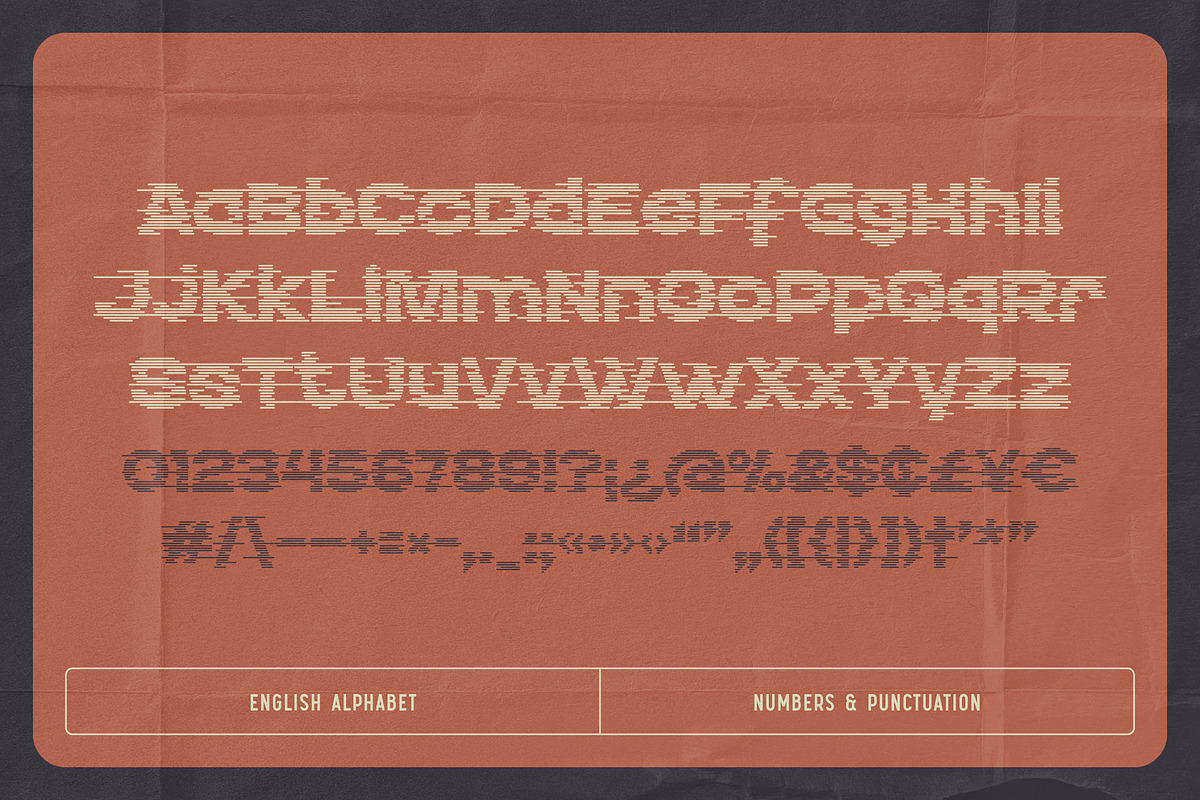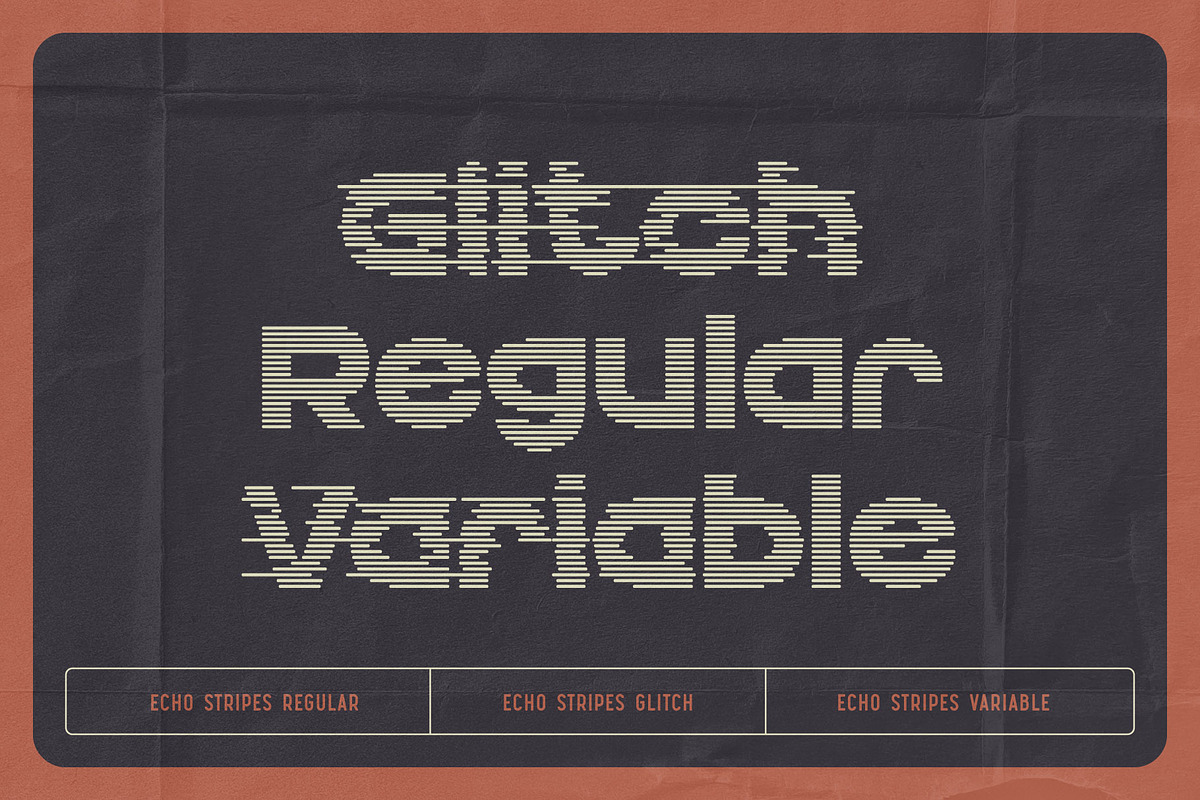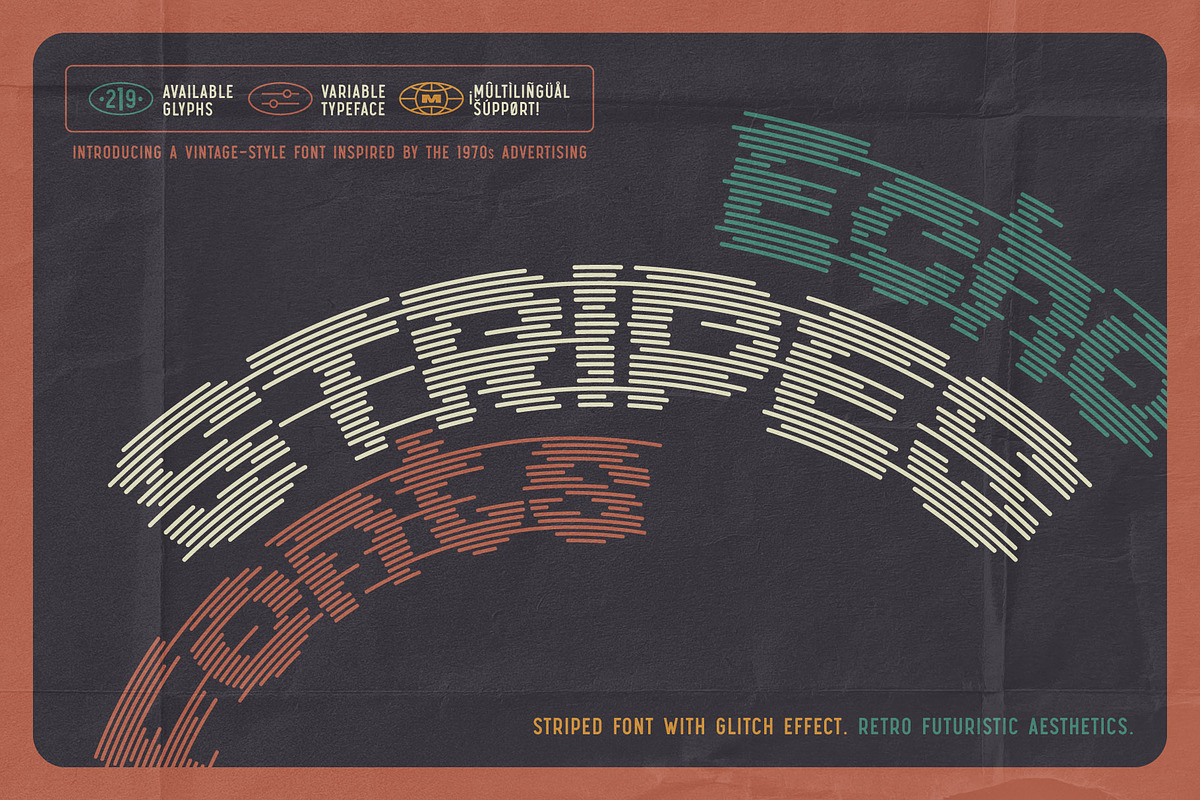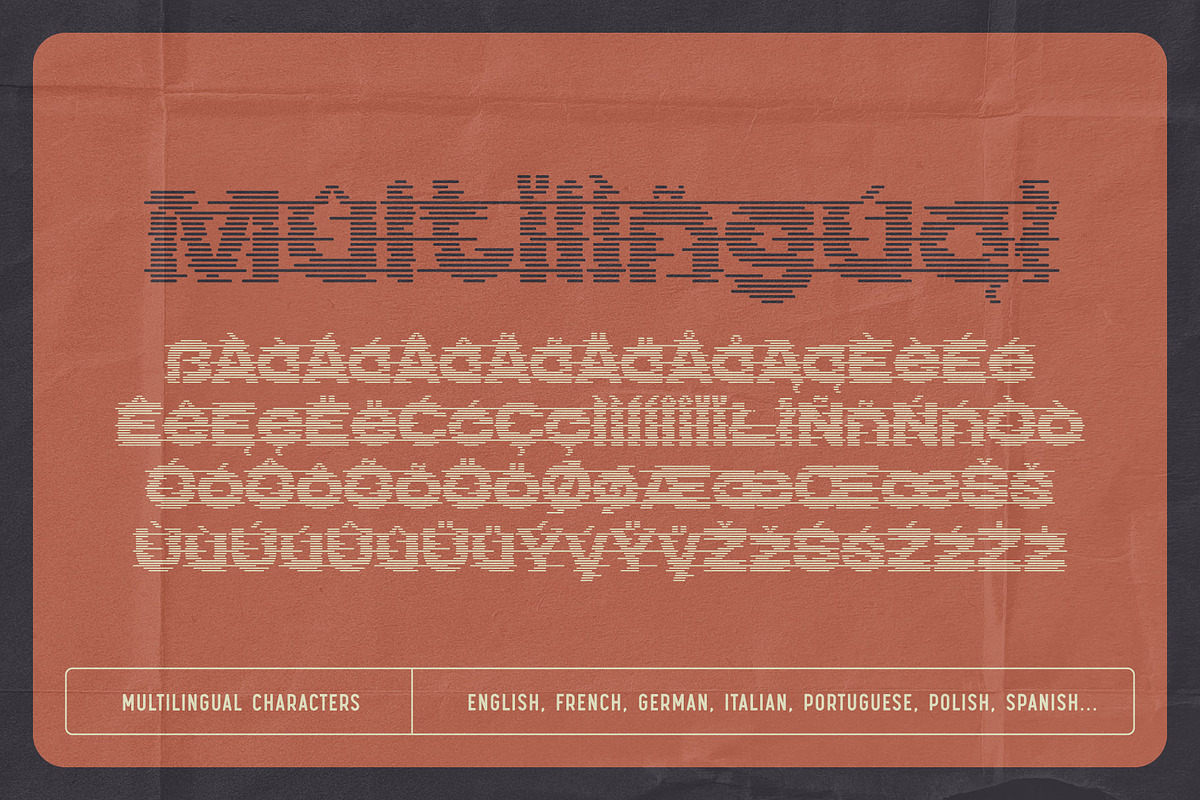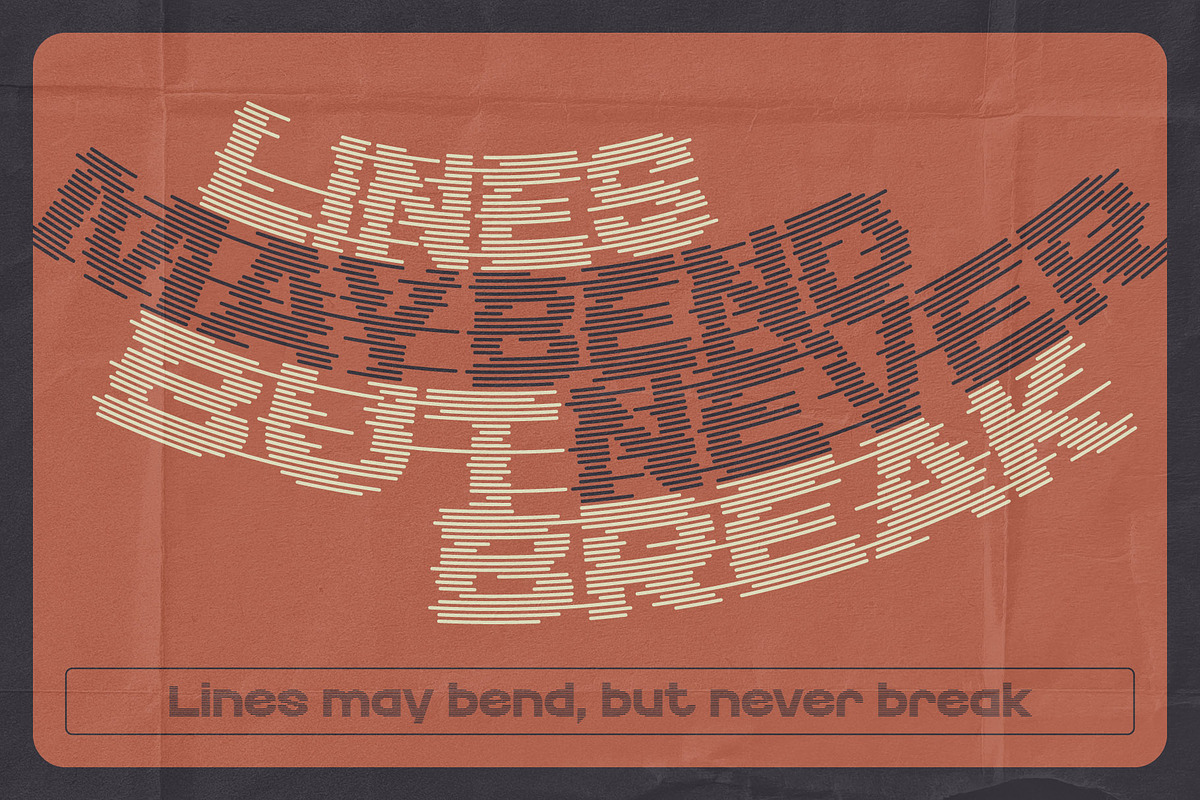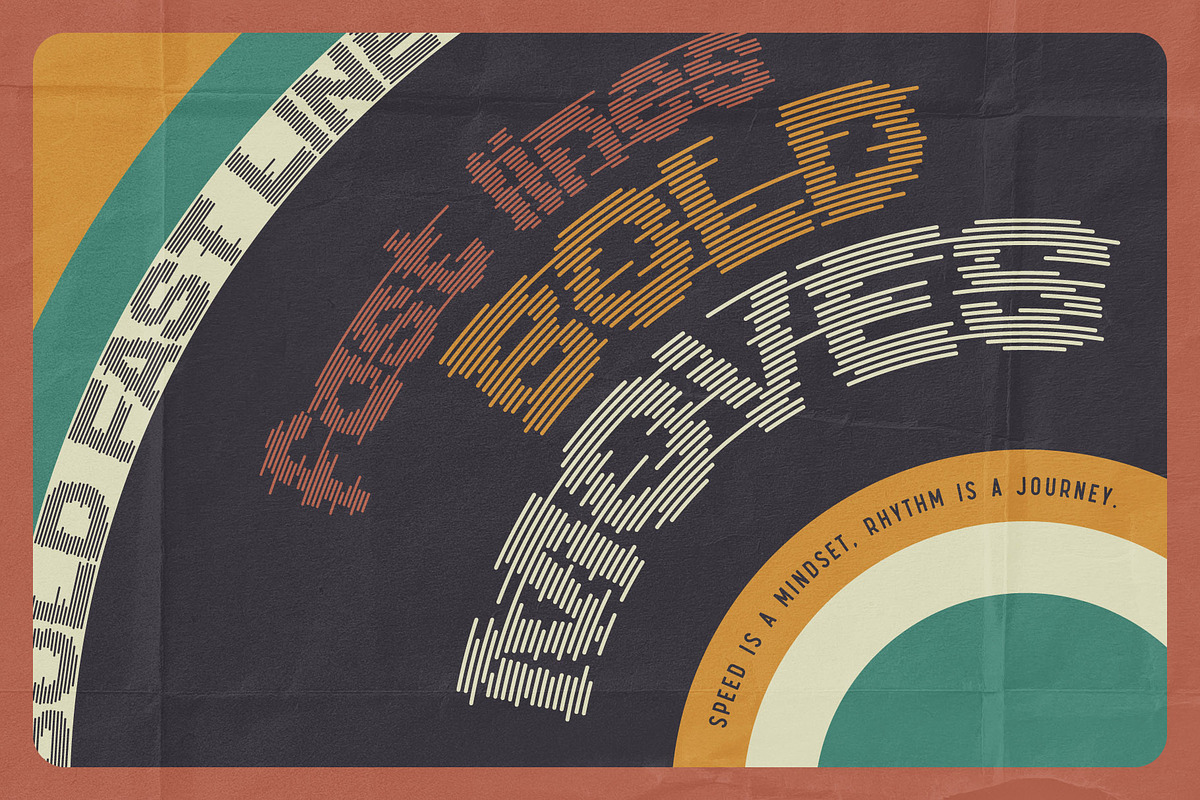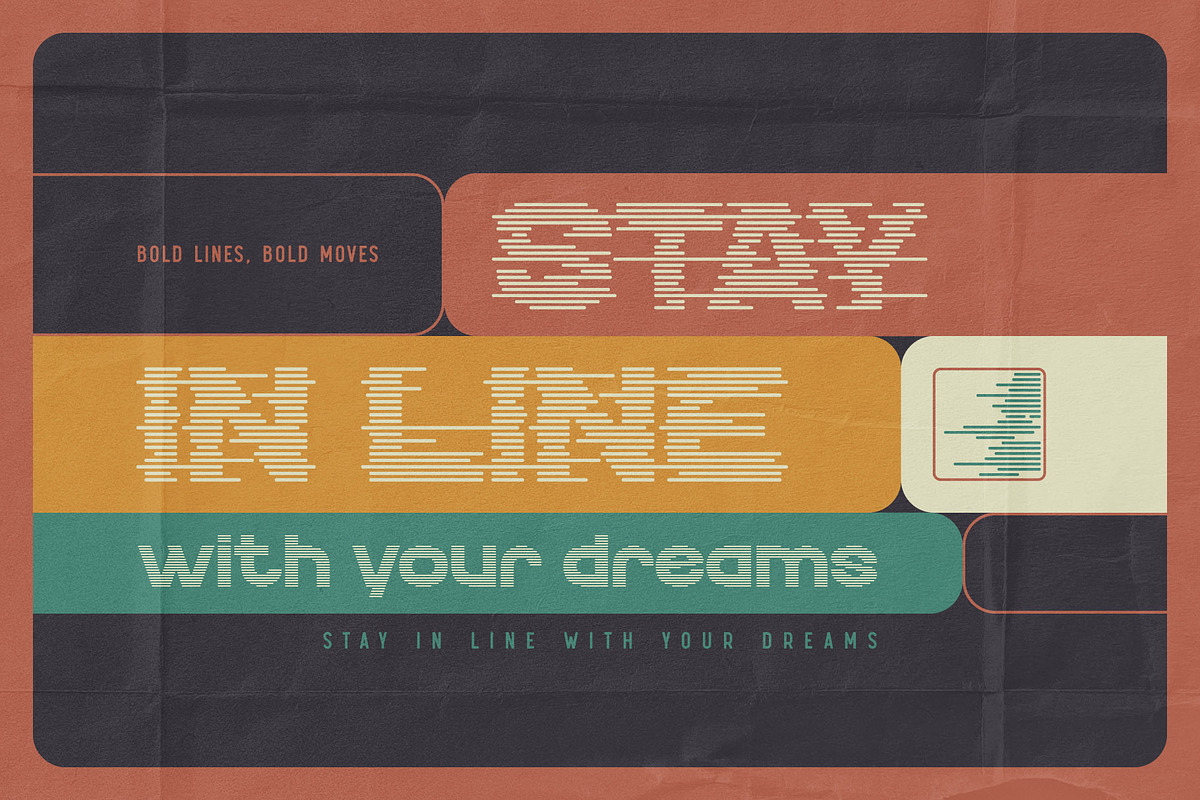
Echo Stripes - Variable Font Set
Introducing Echo Stripes, an original font set. This grotesque sans-serif typeface is crafted from horizontal lines with a glitch effect. The intensity of the distortion can vary from none to maximum, using a variable type feature.
The Echo Stripes font family includes three typefaces: Regular, Glitch, and Variable. It also offers multilingual support — check out the screenshot to see the available characters.